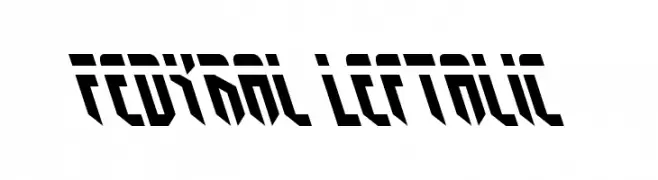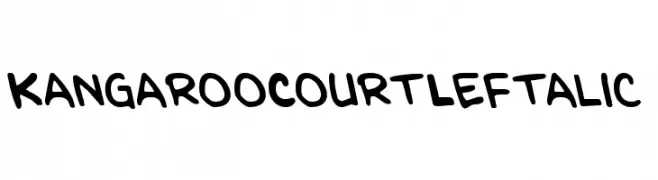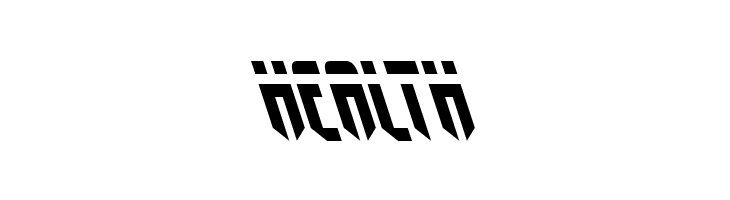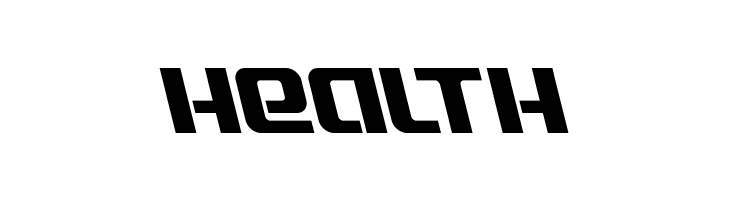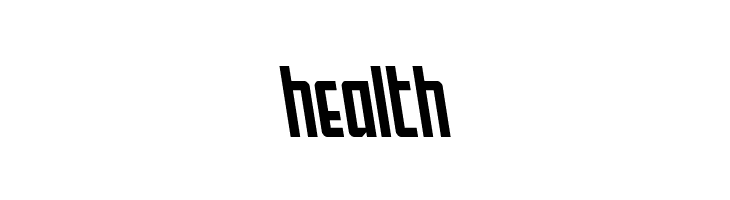
A bold, italicized font with a modern, futuristic style and tight character spacing.
A bold, geometric italic font with a dynamic and modern style.
A bold, oblique font with a modern, futuristic style.
A bold, futuristic italic font with geometric outlines and a three-dimensional effect.
A bold, italic, futuristic font with sharp angles and a dynamic style.
A sleek, modern italic font with geometric precision and tight spacing.
A bold, futuristic font with geometric and slightly slanted characters.
A futuristic, angular italic font with a dynamic and tech-inspired design.
A bold, left-slanted font with a geometric and futuristic style.
A bold, modern sans-serif font with a clean and structured design.
A bold, modern font with geometric shapes and a dynamic slant.
A bold, italicized font with a futuristic shadow effect and geometric design.
A futuristic, outlined, and italicized font with geometric precision.
A bold, futuristic font with angular, slanted characters and high contrast.
A bold, condensed italic font with a modern, futuristic style.
A monospaced font with uniform character width, ideal for coding and tabular data.
A bold, expanded, and italic font with a futuristic and dynamic style.
A futuristic, angular italic font with bold strokes and a dynamic slant.
A bold, italicized font with a futuristic, angular design.
A modern, outlined, italic font with a futuristic and technical design.
A bold, geometric font with a futuristic and modern aesthetic.
A modern, geometric font with a playful and slightly quirky design.
A classic monospaced typeface with a clean, uniform appearance.
A bold, outlined font with a modern, slanted design.
A dot matrix font with a digital, retro aesthetic.
A bold, geometric font with a modern, industrial aesthetic.
A futuristic, angular italic font with a bold and dynamic style.
A bold, italic, futuristic font with sharp angles and high contrast.
A bold, condensed italic font with a modern, geometric style.